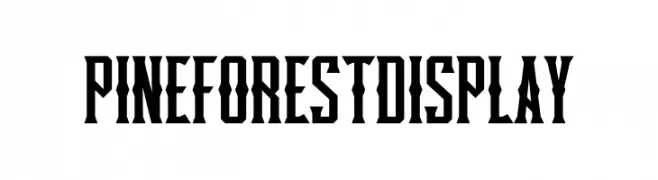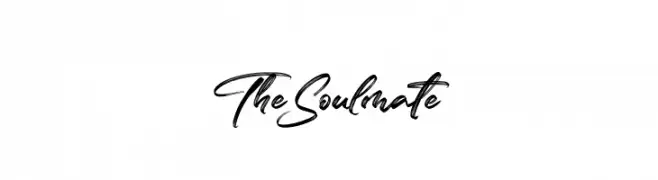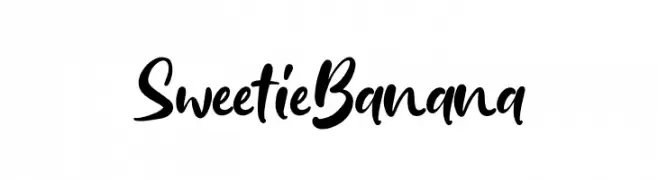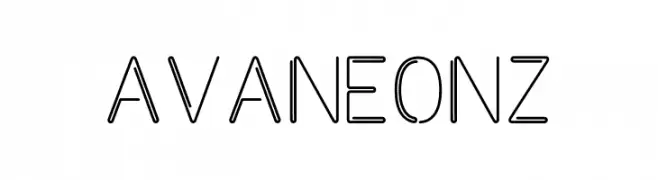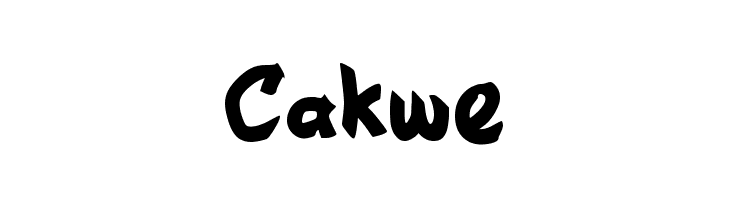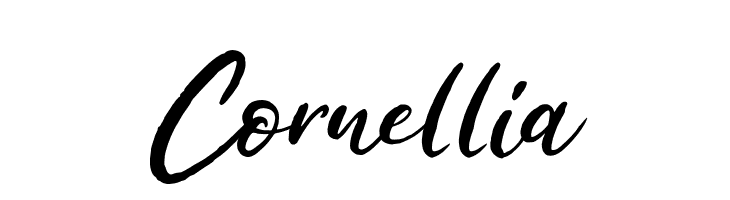
A bold, geometric sans-serif font with a modern and clean design.
A high-contrast, elegant serif font with sharp serifs and narrow letterforms.
A retro-inspired font with a double-line, geometric design.
A bold, modern cursive font with fluid, connected characters.
A bold, angular font with high contrast and a commanding presence.
A dynamic handwritten font with fluid strokes and expressive style.
A bold, handwritten-style font with a playful and energetic vibe.
A bold, brush-style script font with a playful and energetic feel.
Bold and angular font with a strong, modern presence.
A modern, geometric font with clean lines and consistent stroke width.